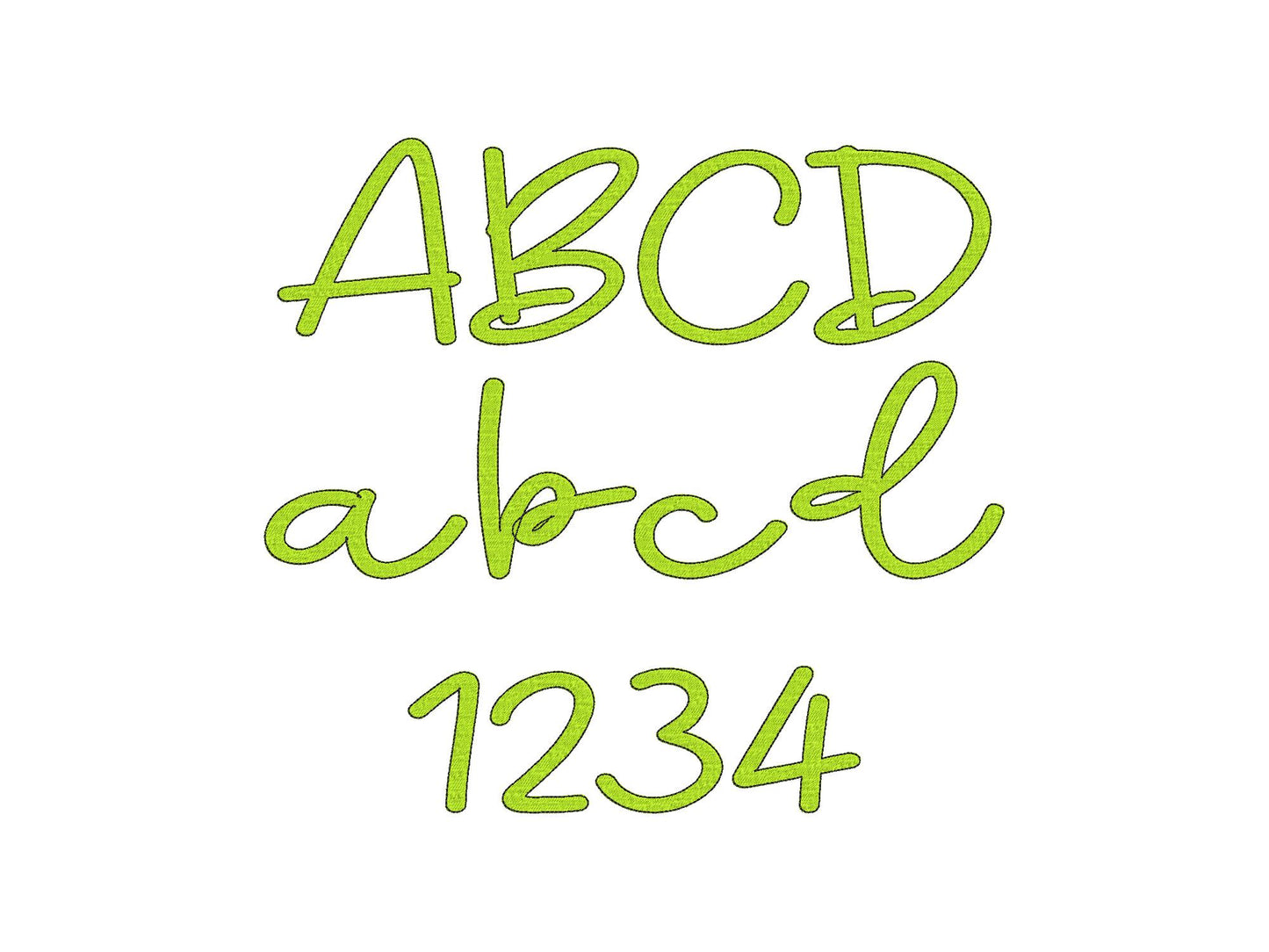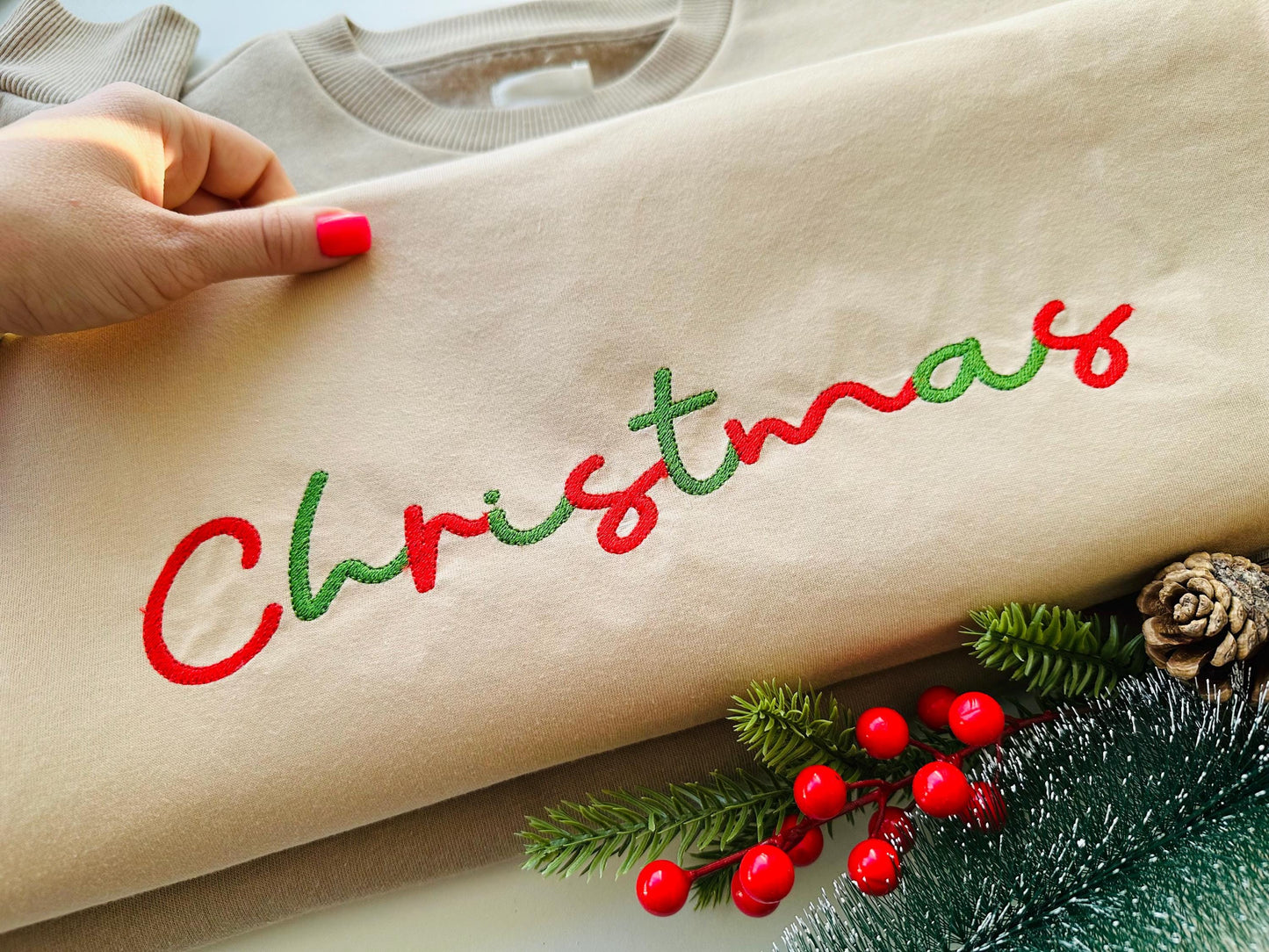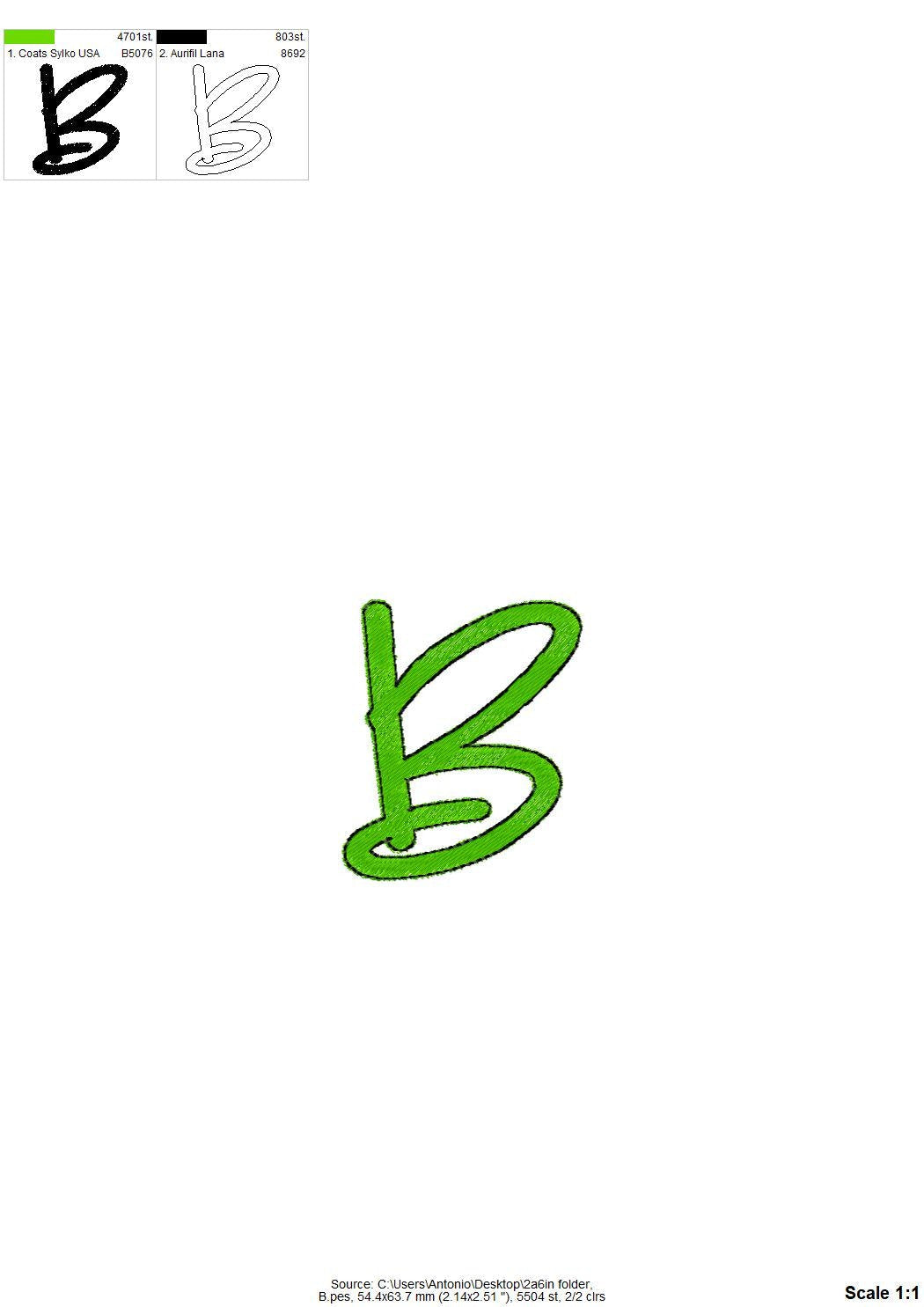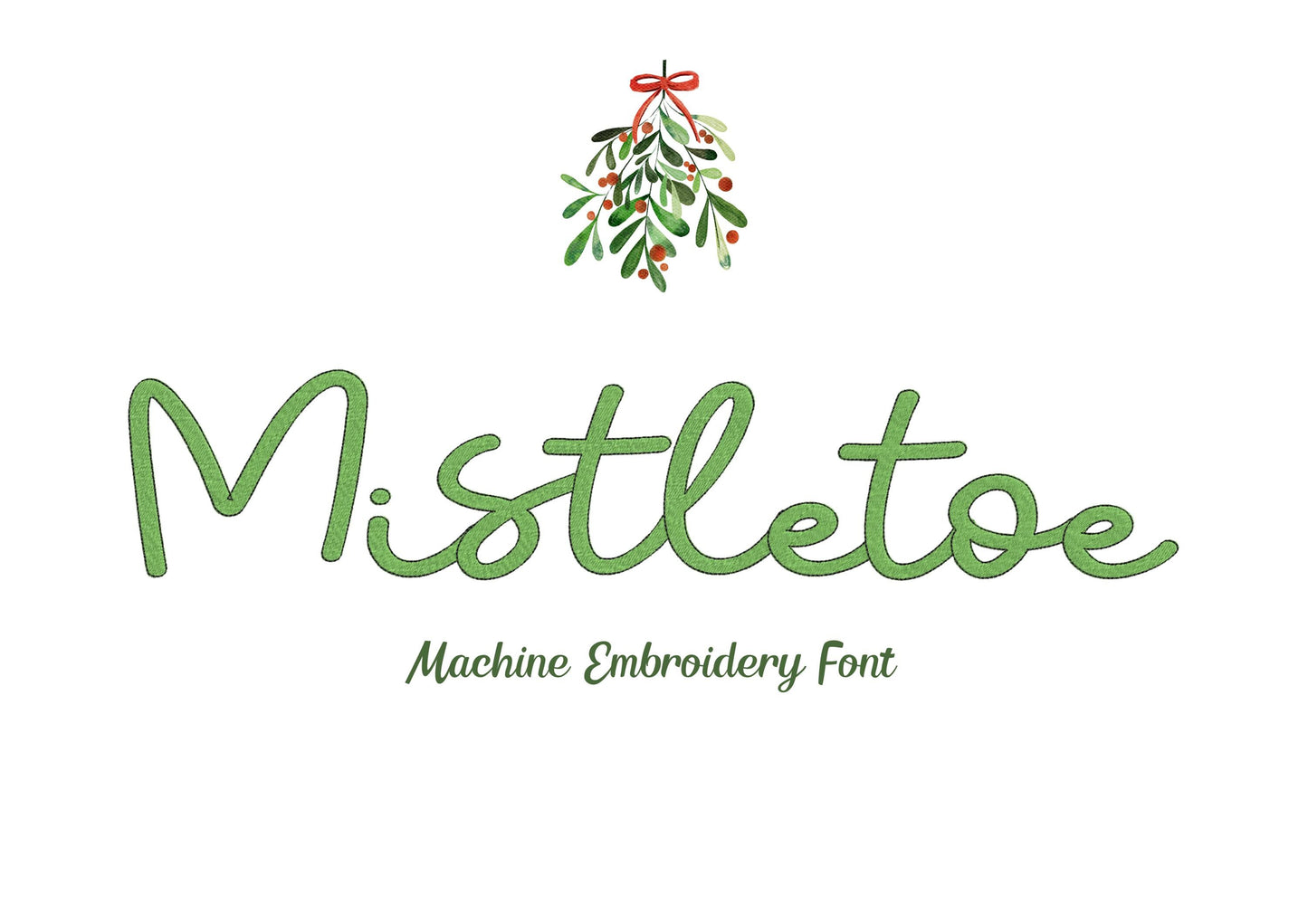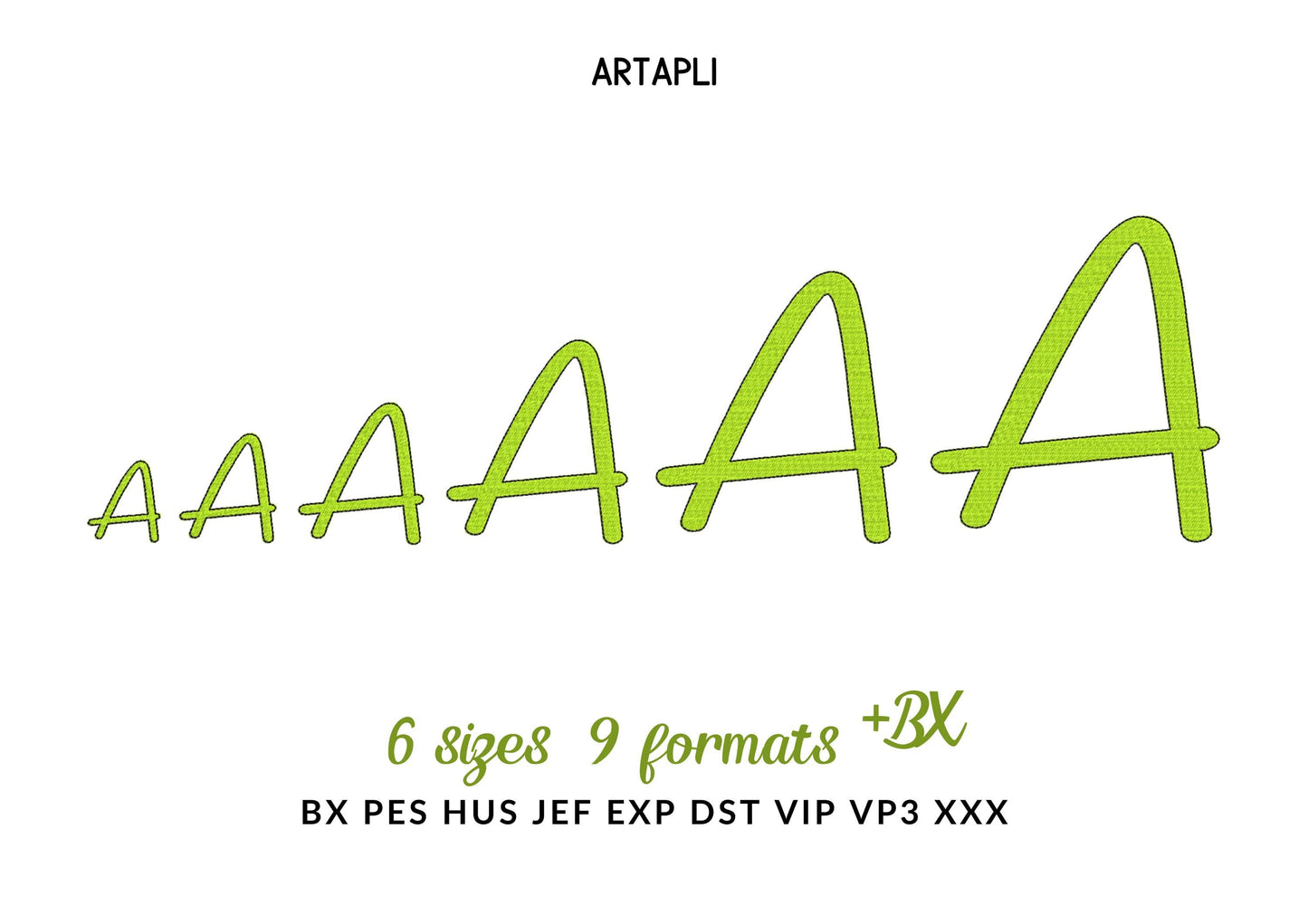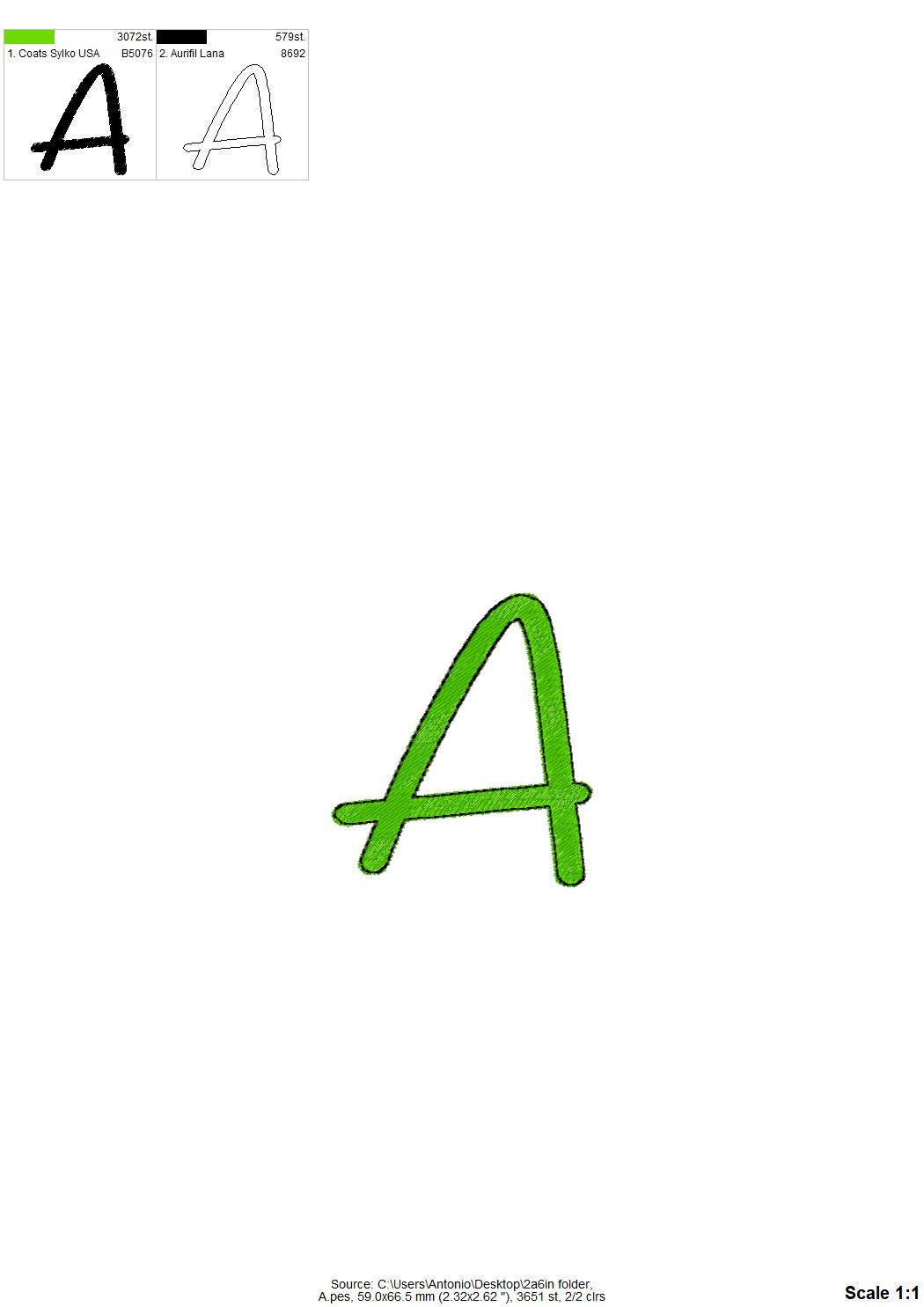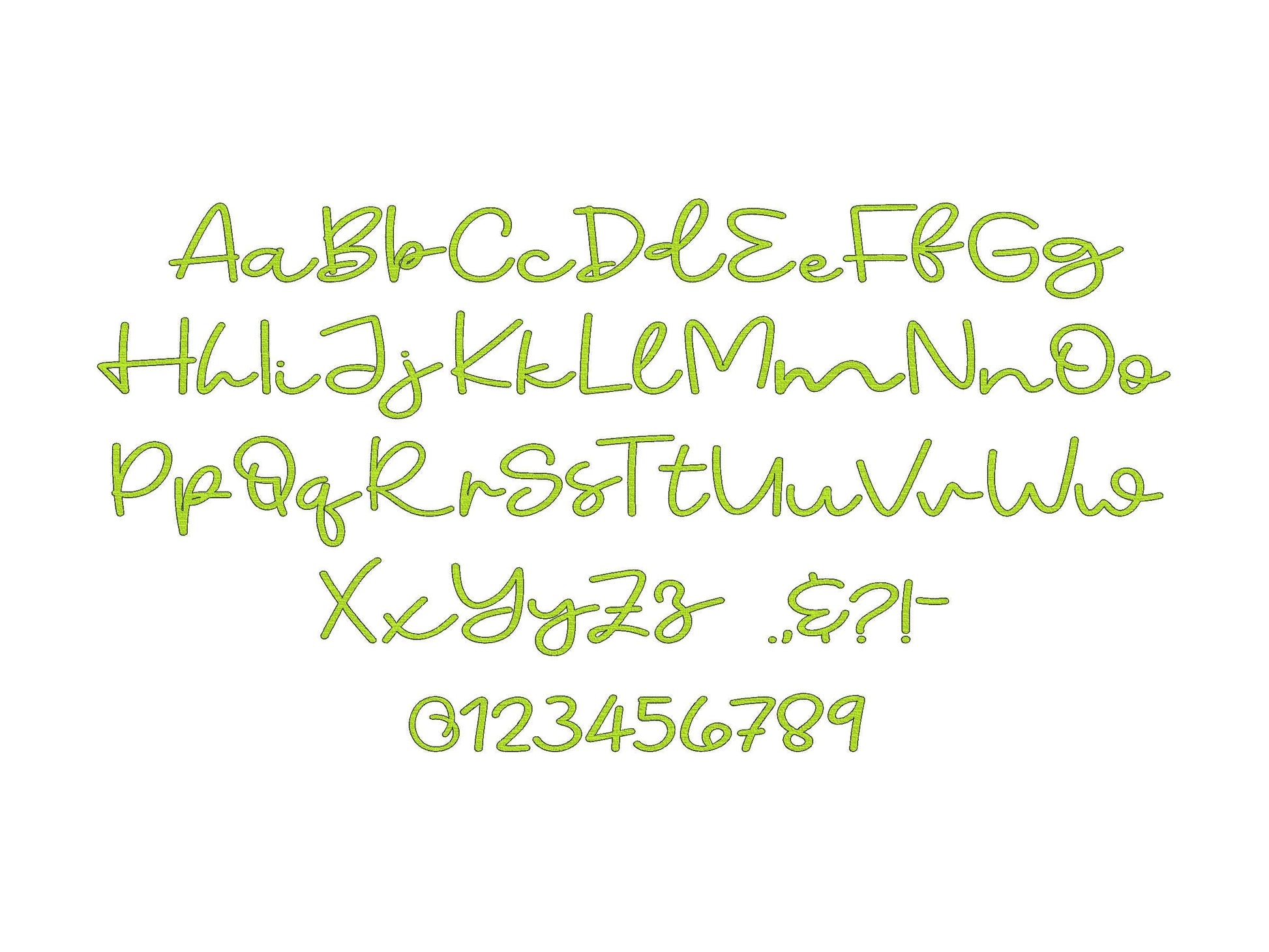
Fill Stitch Handwritten Script Font
Or click to open the linkA handwritten script in fill stitch with an outline, for bold names and monograms on shirts, bags and pillows.
Uppercase and lowercase letters, numbers and punctuation in six sizes: 1.5, 2, 2.6, 3.7, 5 and 6 inches.
- Fill stitch handwritten script font
- Uppercase, lowercase, numbers 0-9, punctuation
- 6 sizes, 1.5 to 6 in